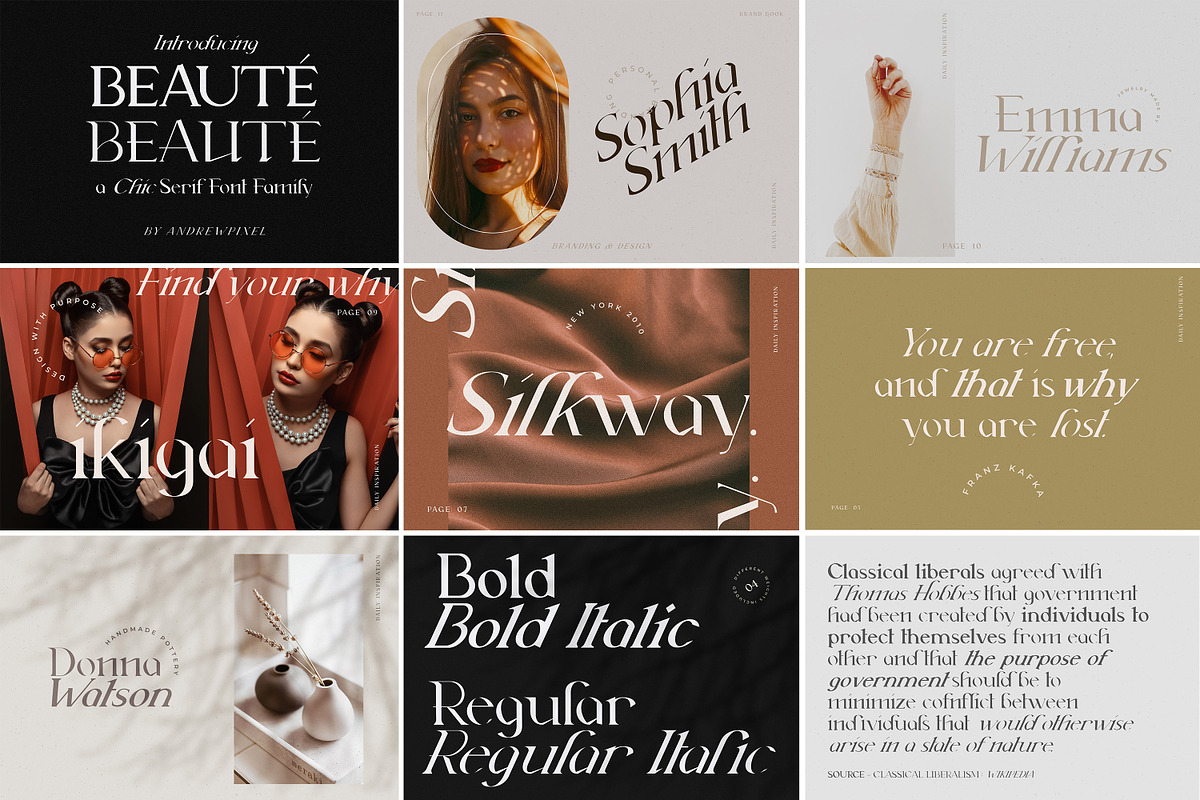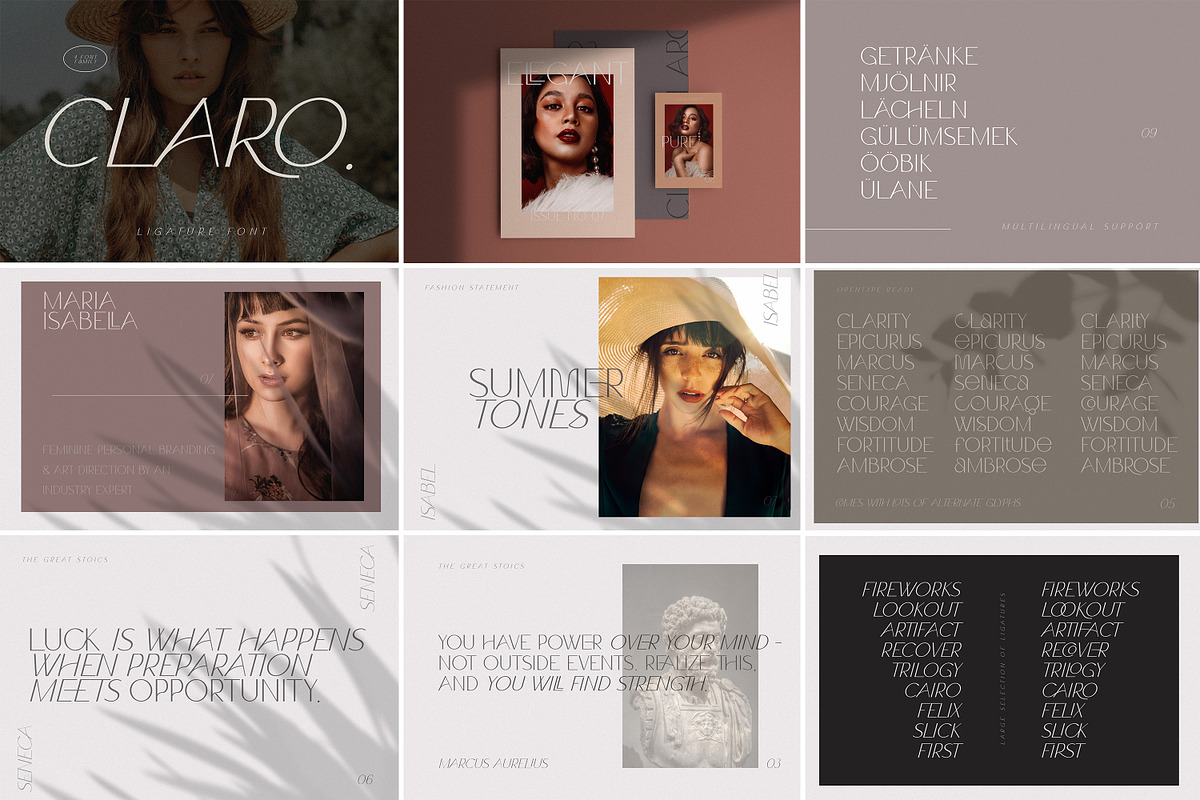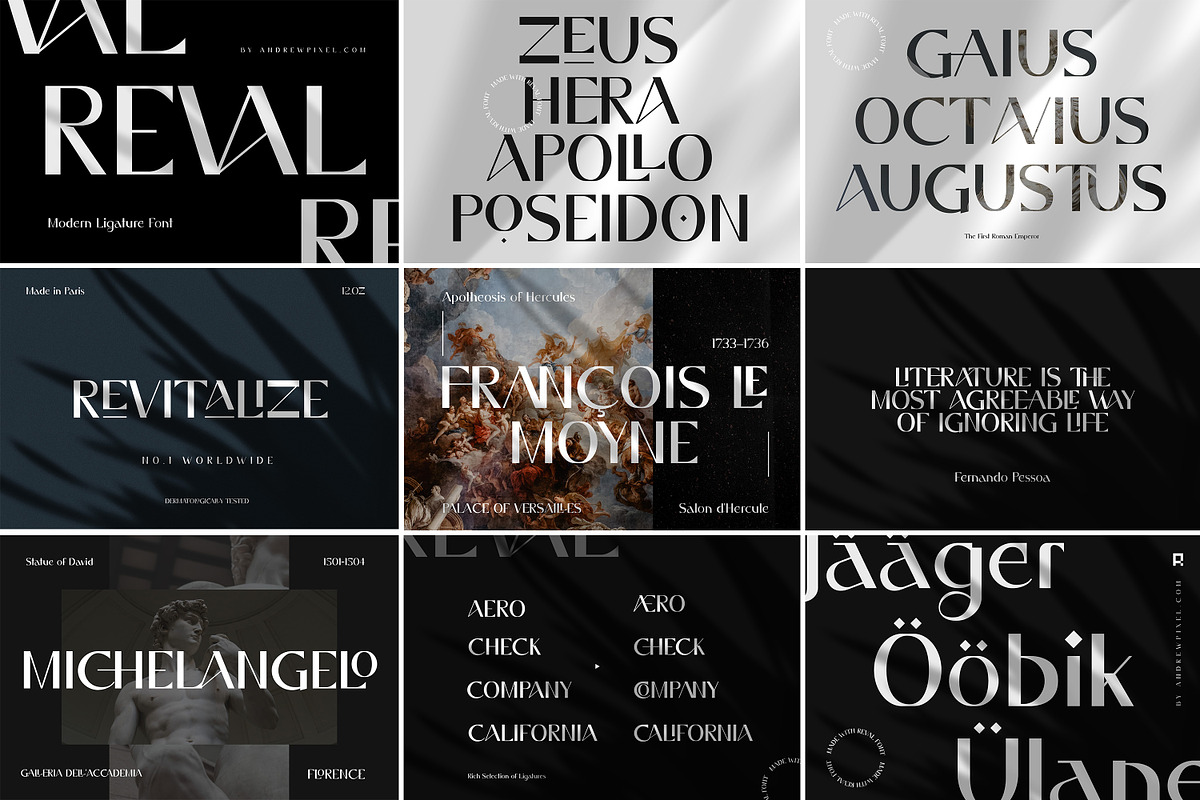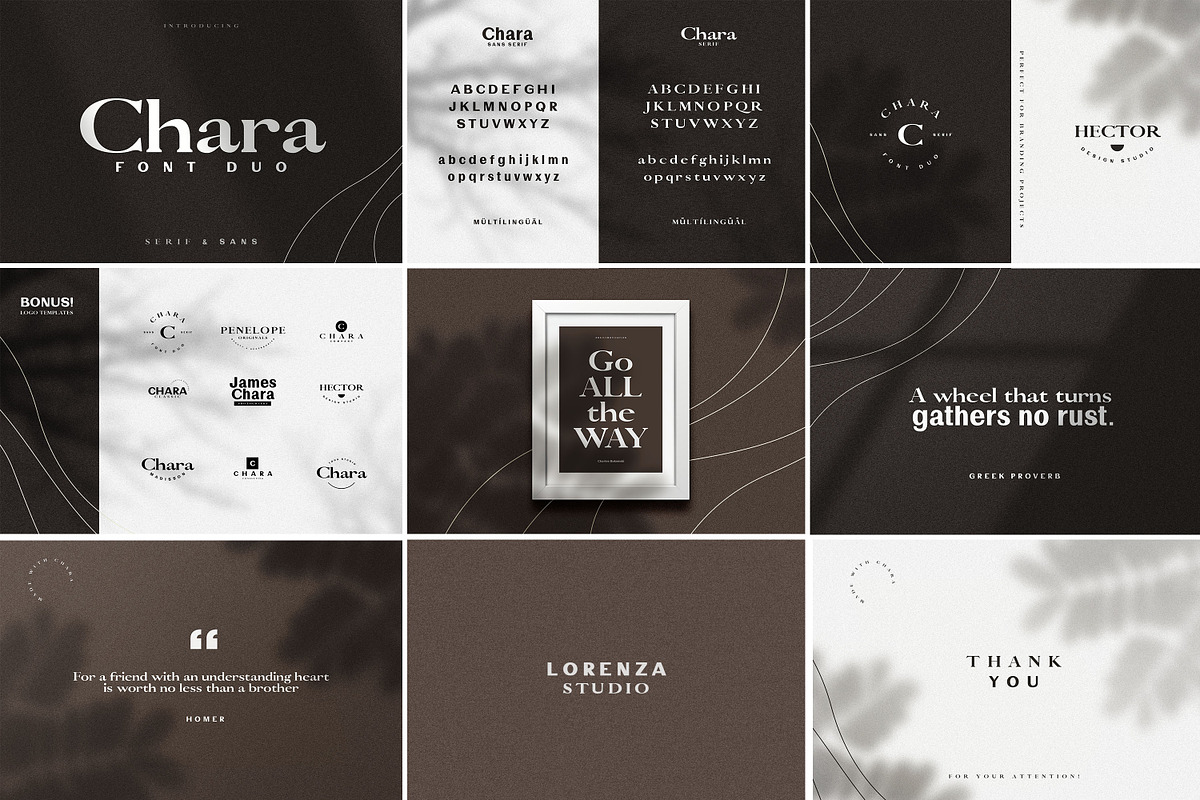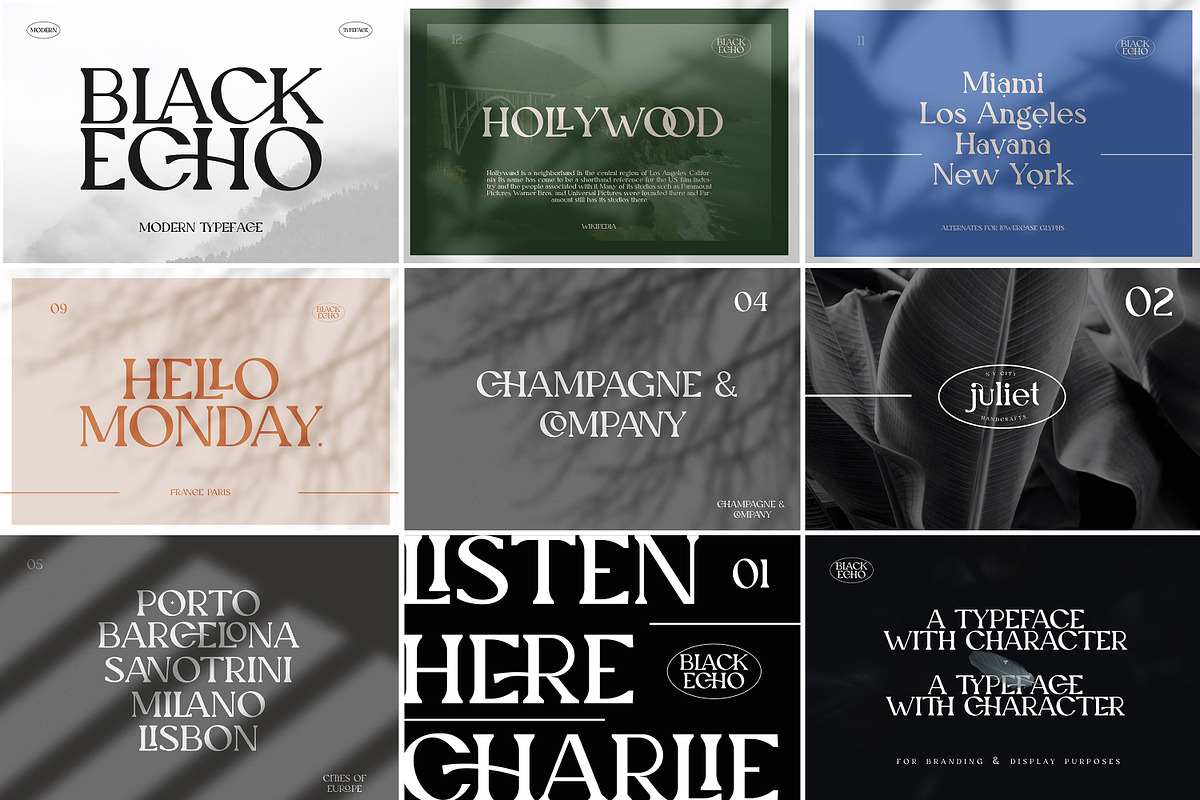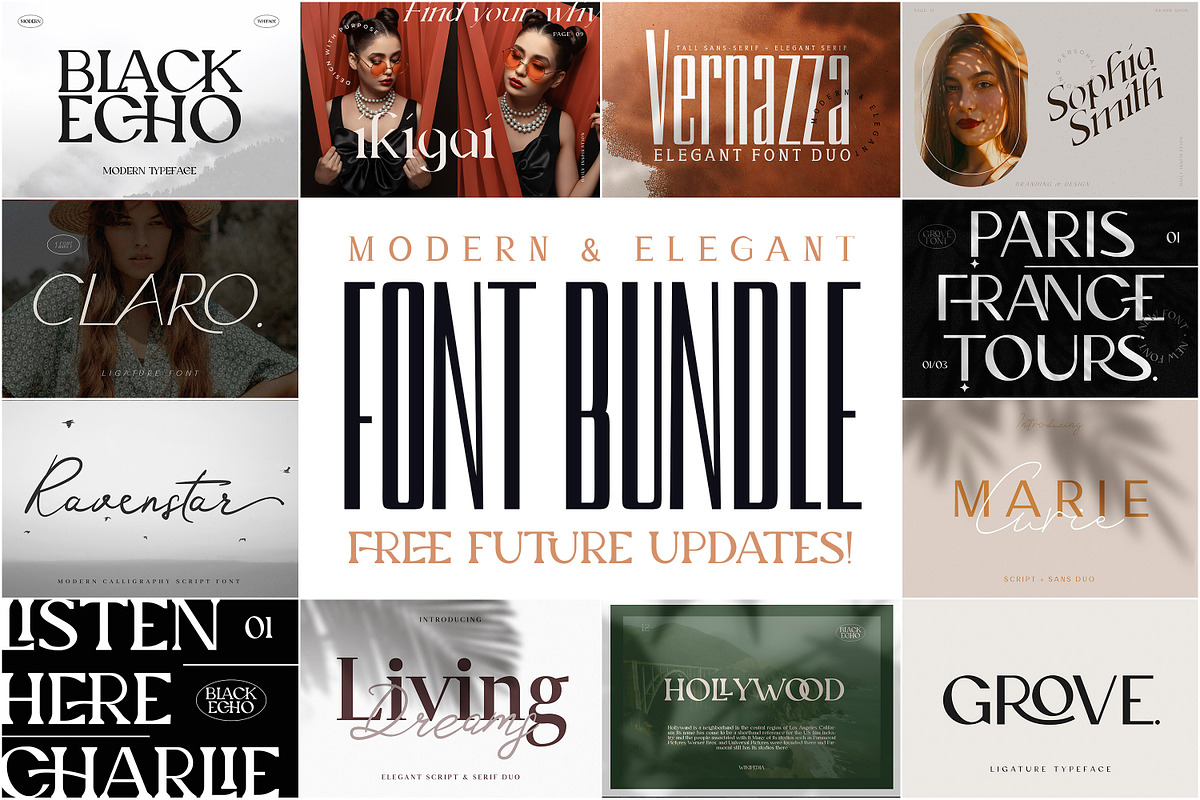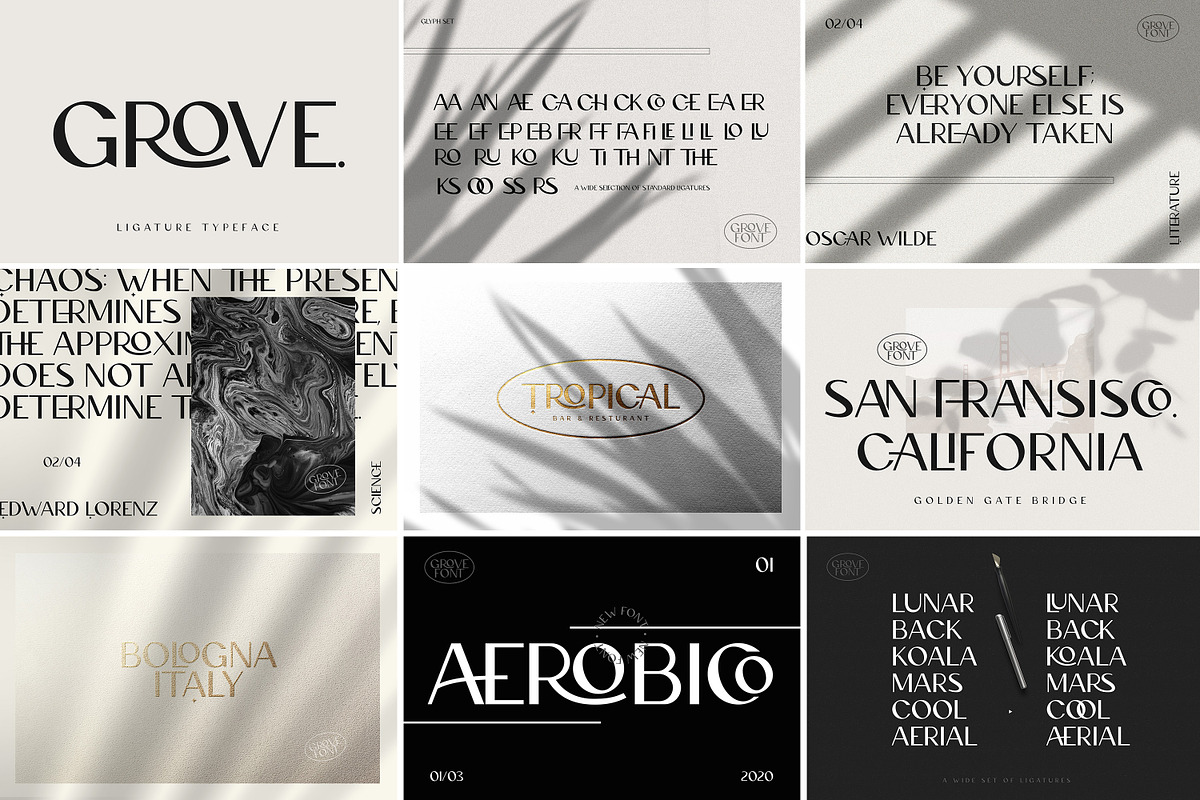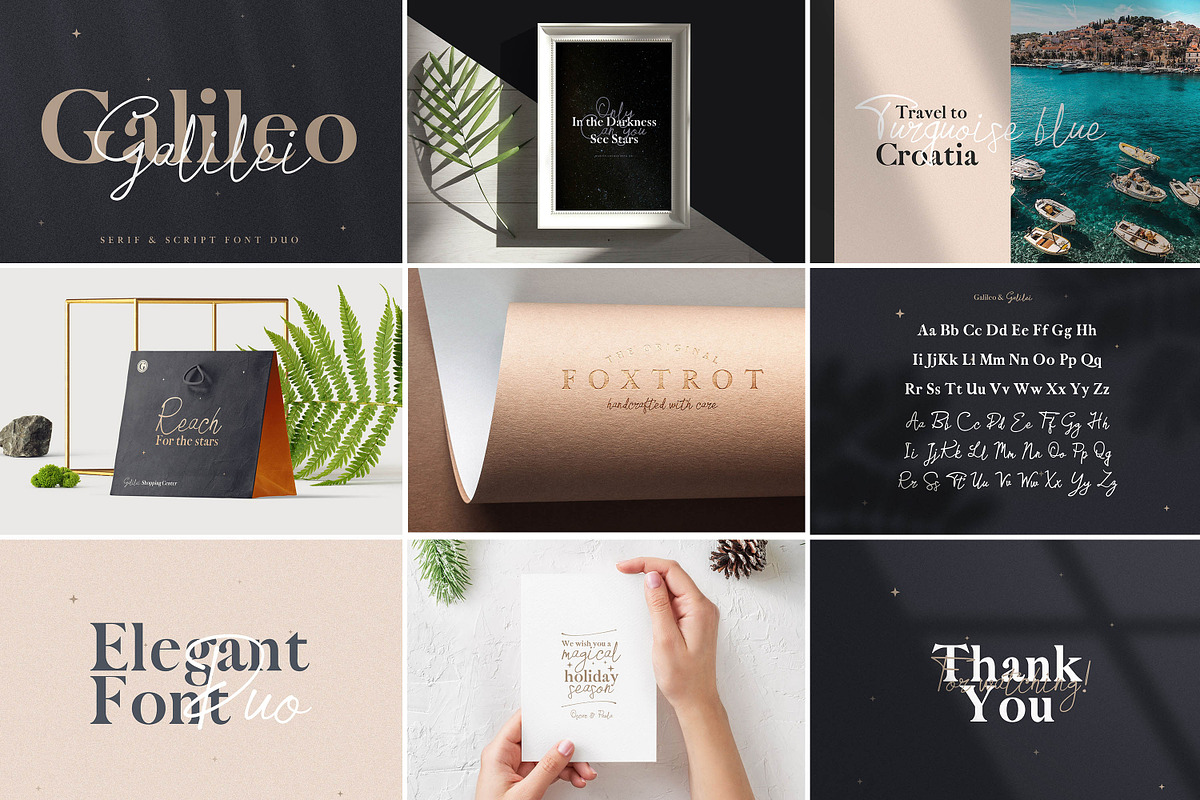
Modern & Elegant Font Bundle
Introducing Modern & Elegant Font Bundle - with 24 different font families and 45 unique fonts in a single huge collection
You 'll get all of my elegant and modern script, serif and sans-serif fonts that I have worked on over the last years - All in one single bundle. This bundle primarily consists of fonts with modern, clean and minimalistic vibe, although there are also some rugged and rough grunge textured ones in the mix. Create limitless amount of unique logos, posters, flyers and more!
Precious & Sunstone -
Margrite Font Family -
Galileo Galilei Duo -
Pomino Serif Family -
Chara Sans Serif Duo -
Vernazza Luxury Duo -
Modern & Elegant Font Bundle by AndrewPixel fits naturally into Branding, posters, packaging, typography.